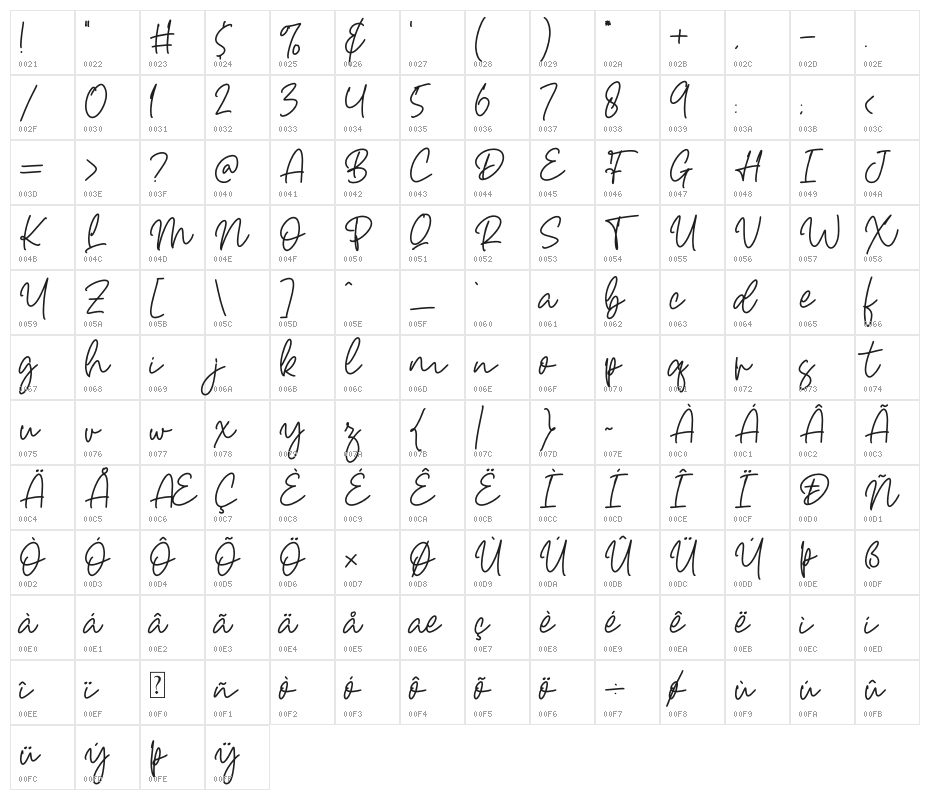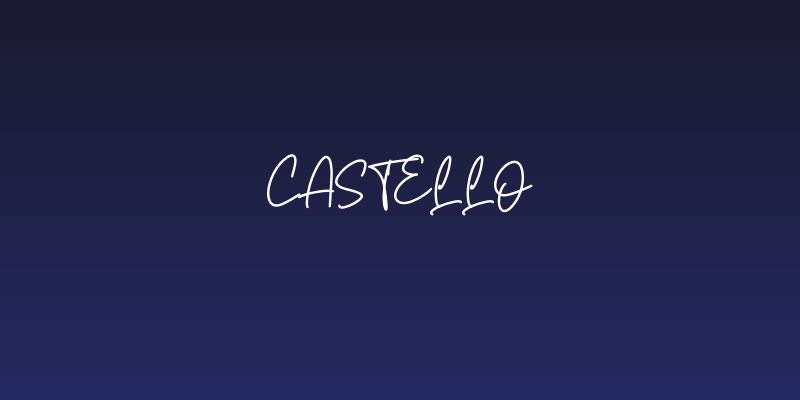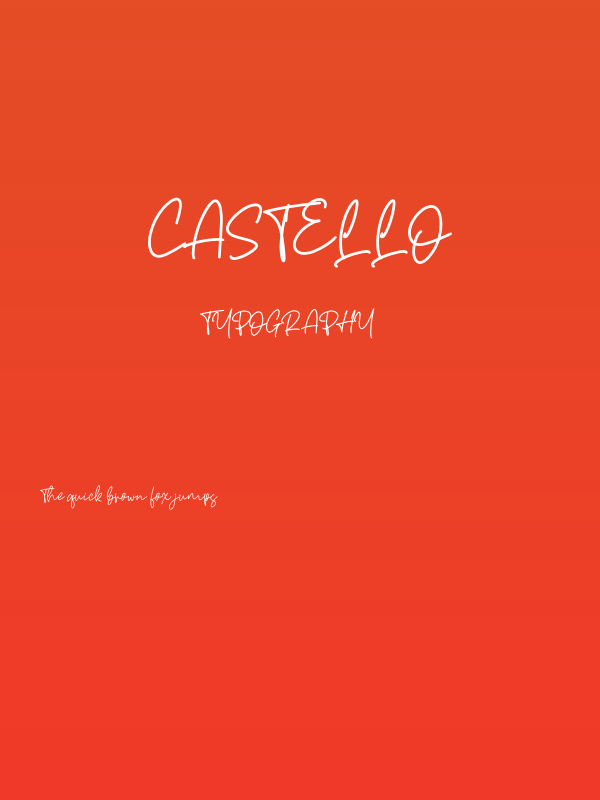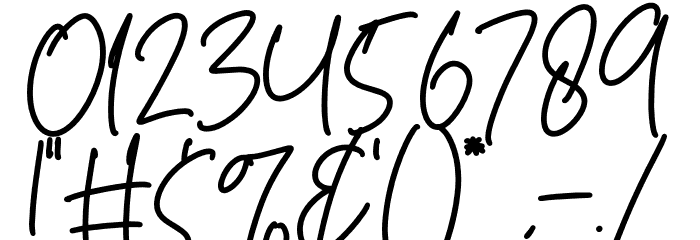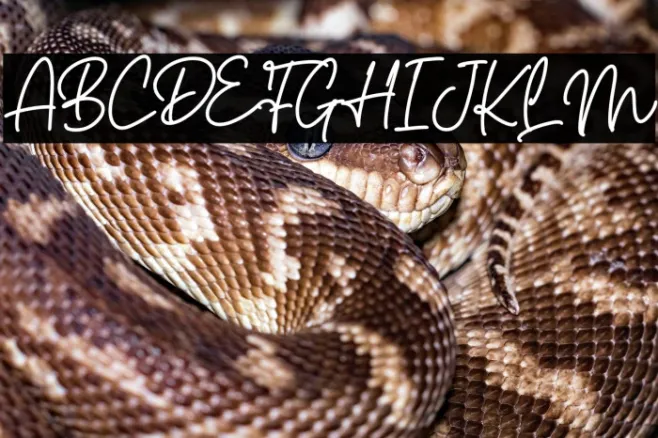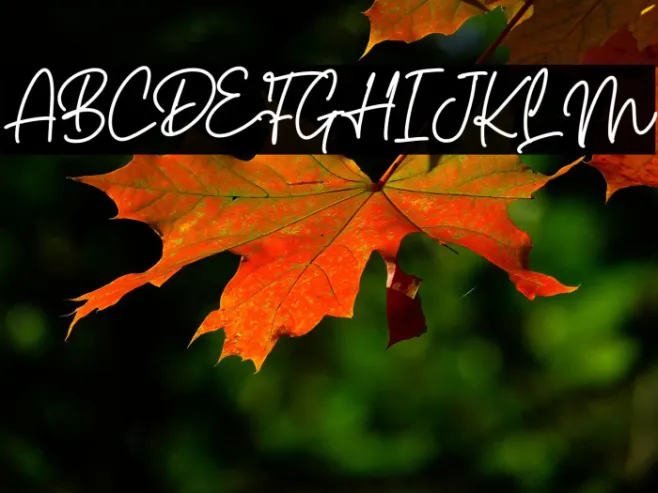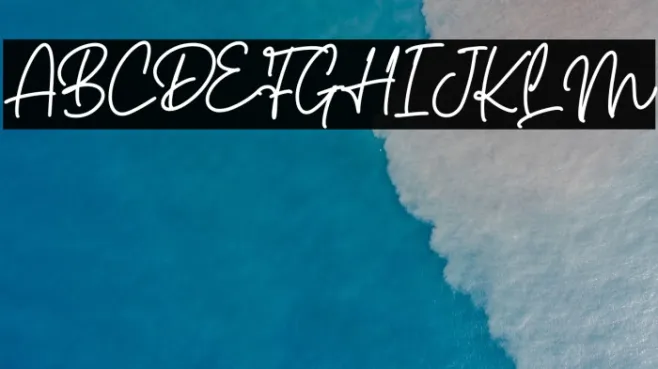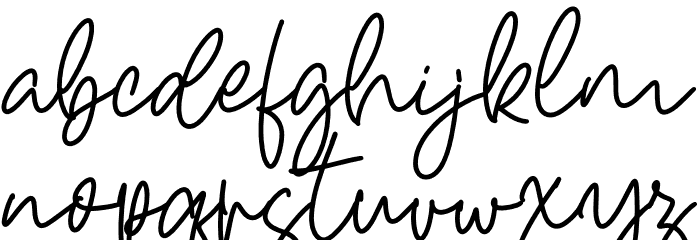
Castello Font
Castello Description
This font features a lively and flowing handwritten style, characterized by its smooth, cursive strokes and natural, organic feel. The uppercase letters maintain a consistent height, while the lowercase letters exhibit a playful, slightly irregular baseline, adding to its casual charm. The numerals and special characters are crafted with the same fluidity, ensuring a cohesive look across all text. This font's design is both approachable and stylish, making it suitable for a variety of creative applications.
| Use Case | Logos, Invitations, Social Media Graphics |
| Proposed Projects | Ideal for greeting cards, personal branding, social media graphics, and invitations. |